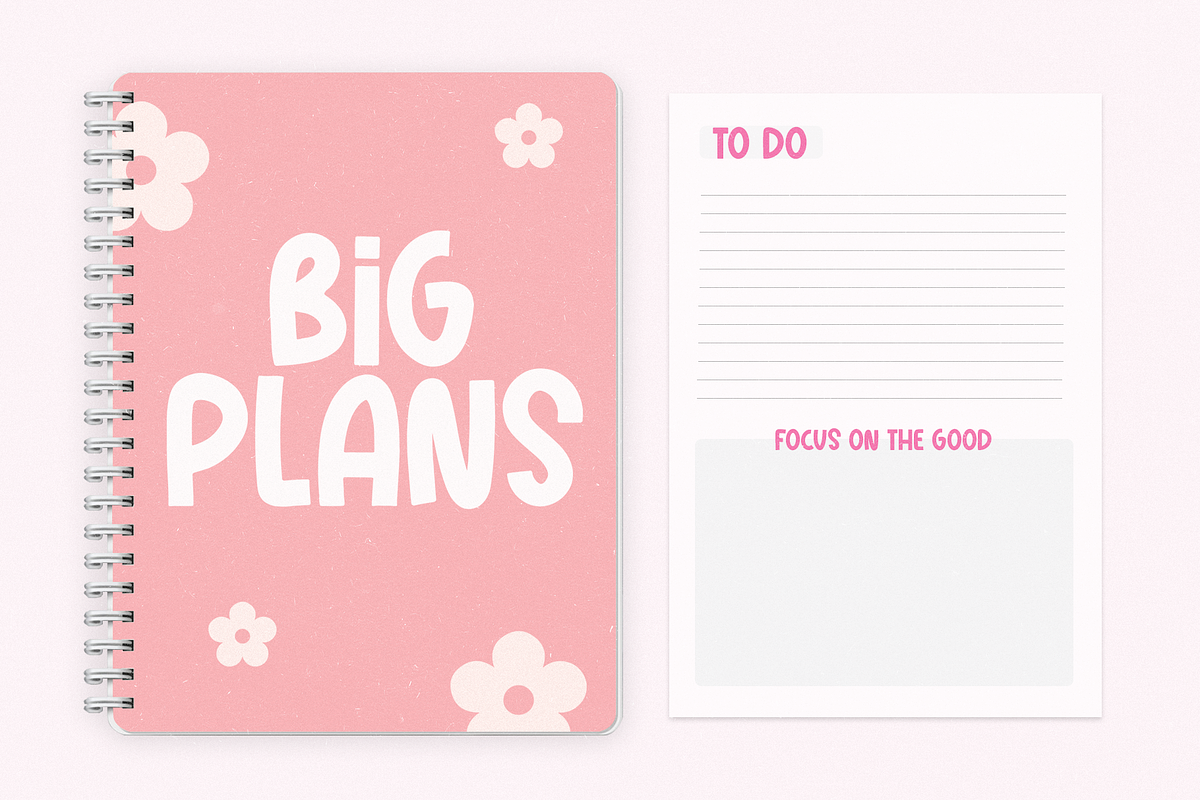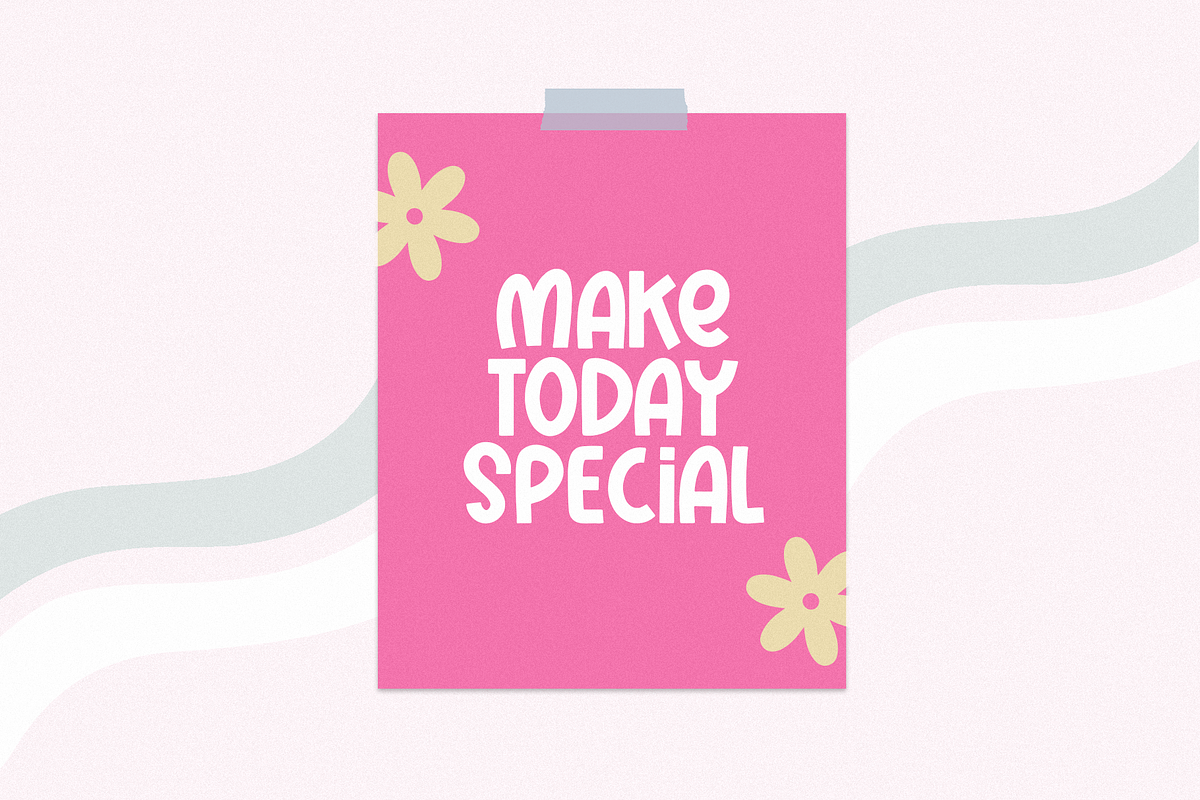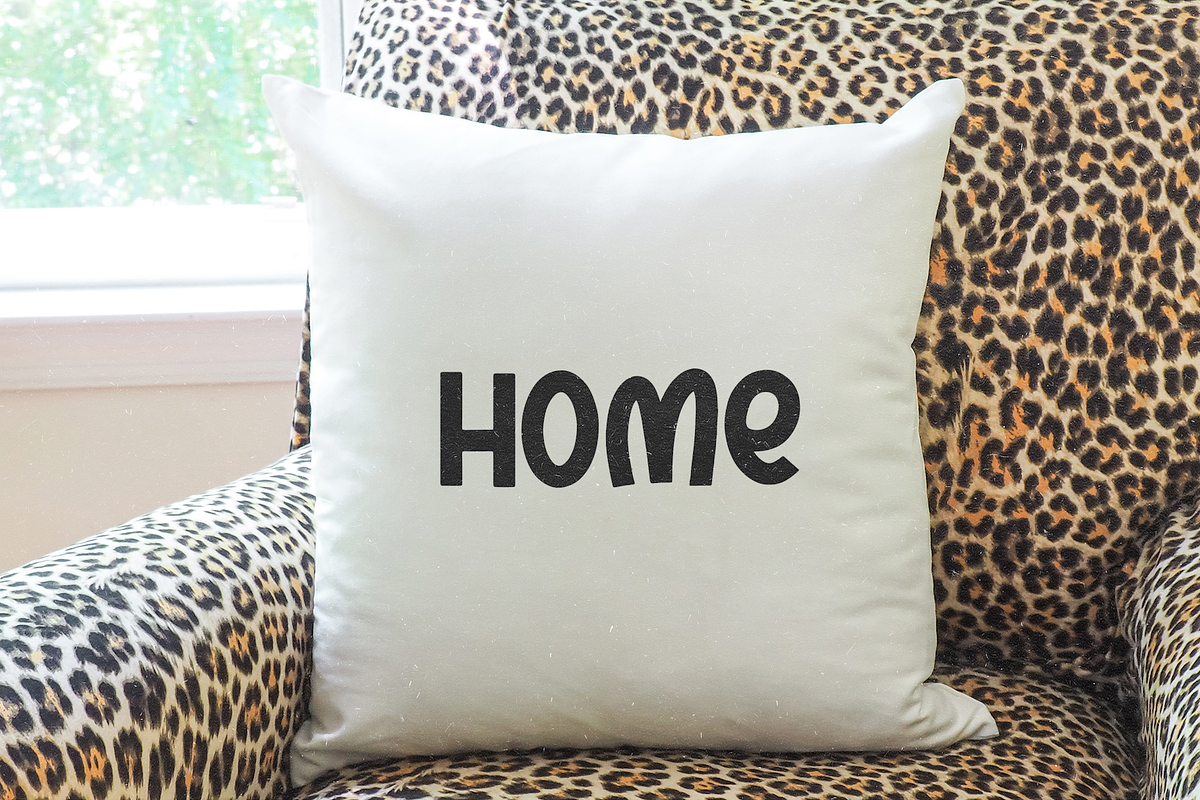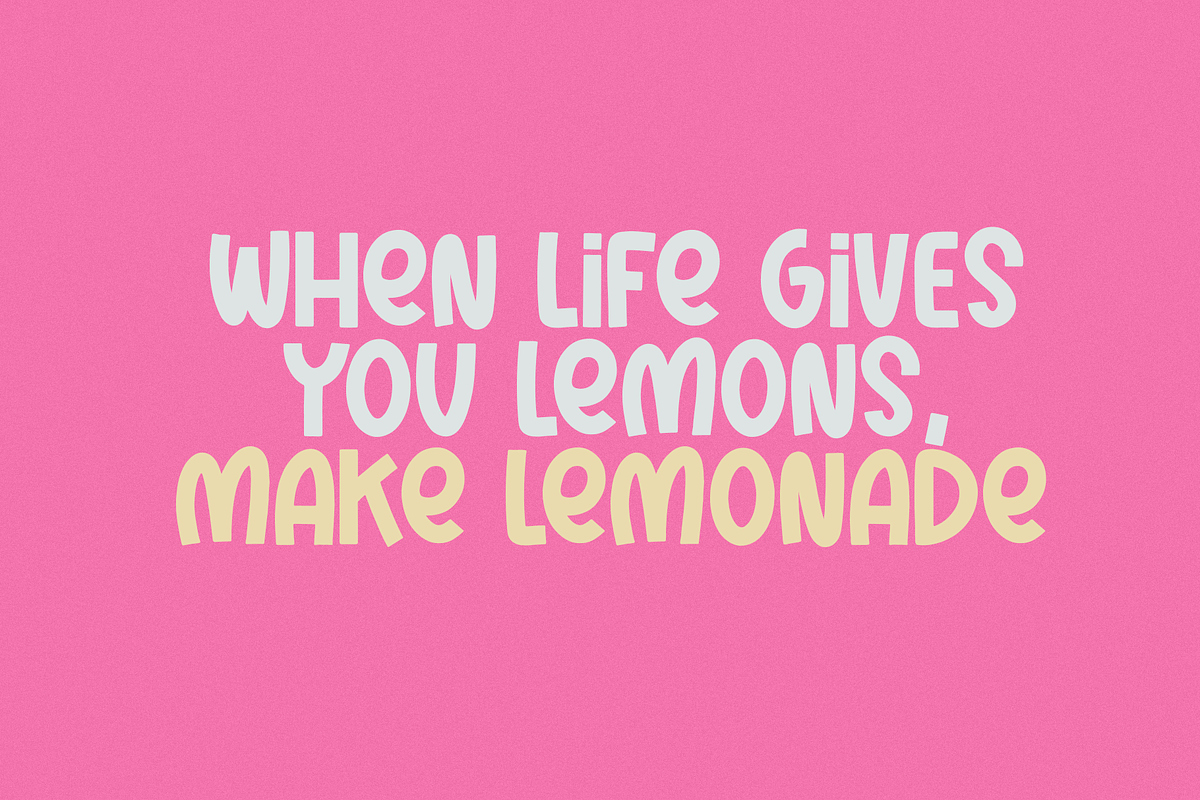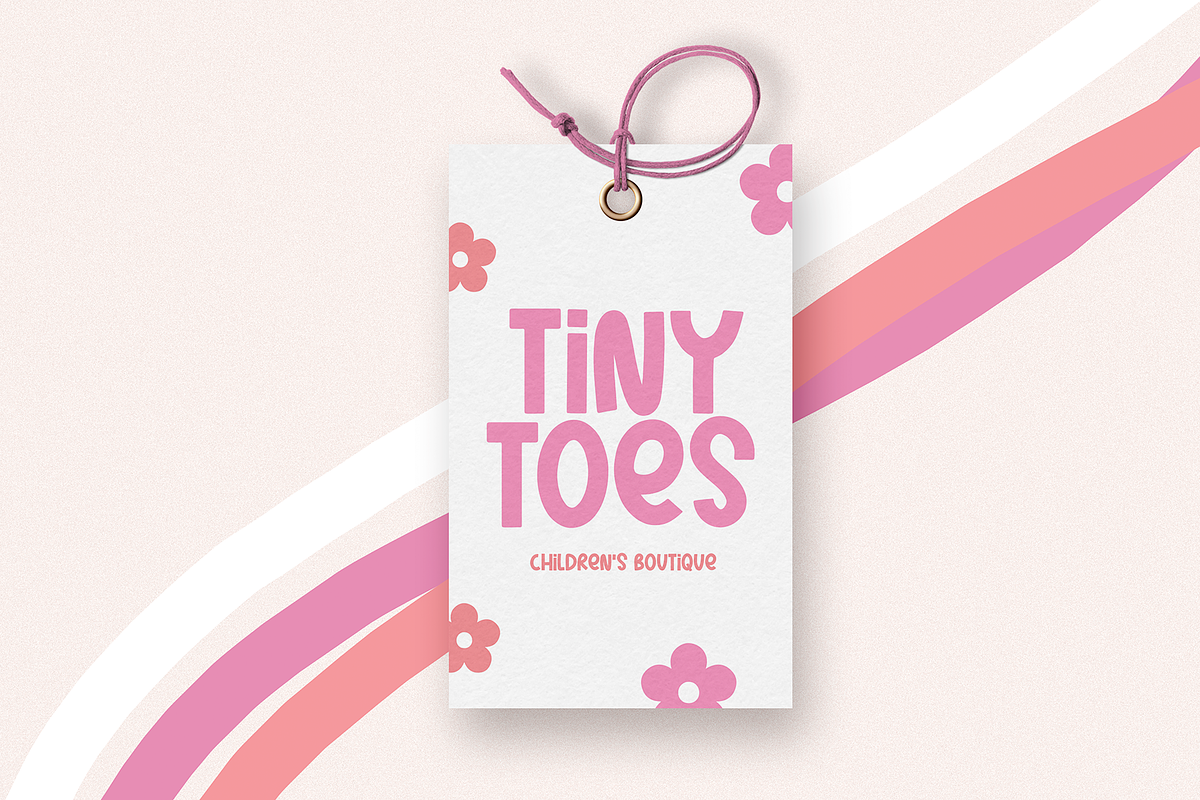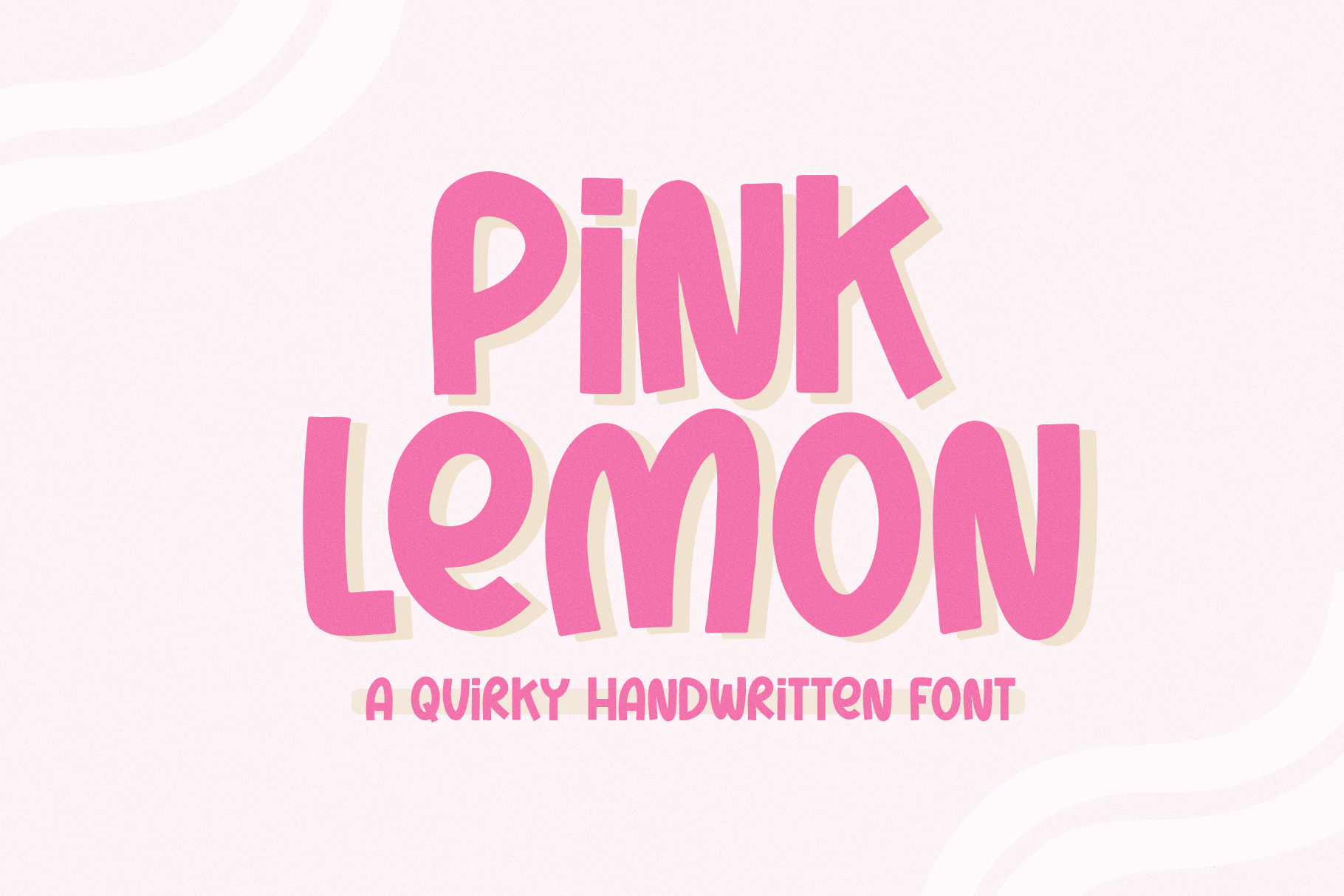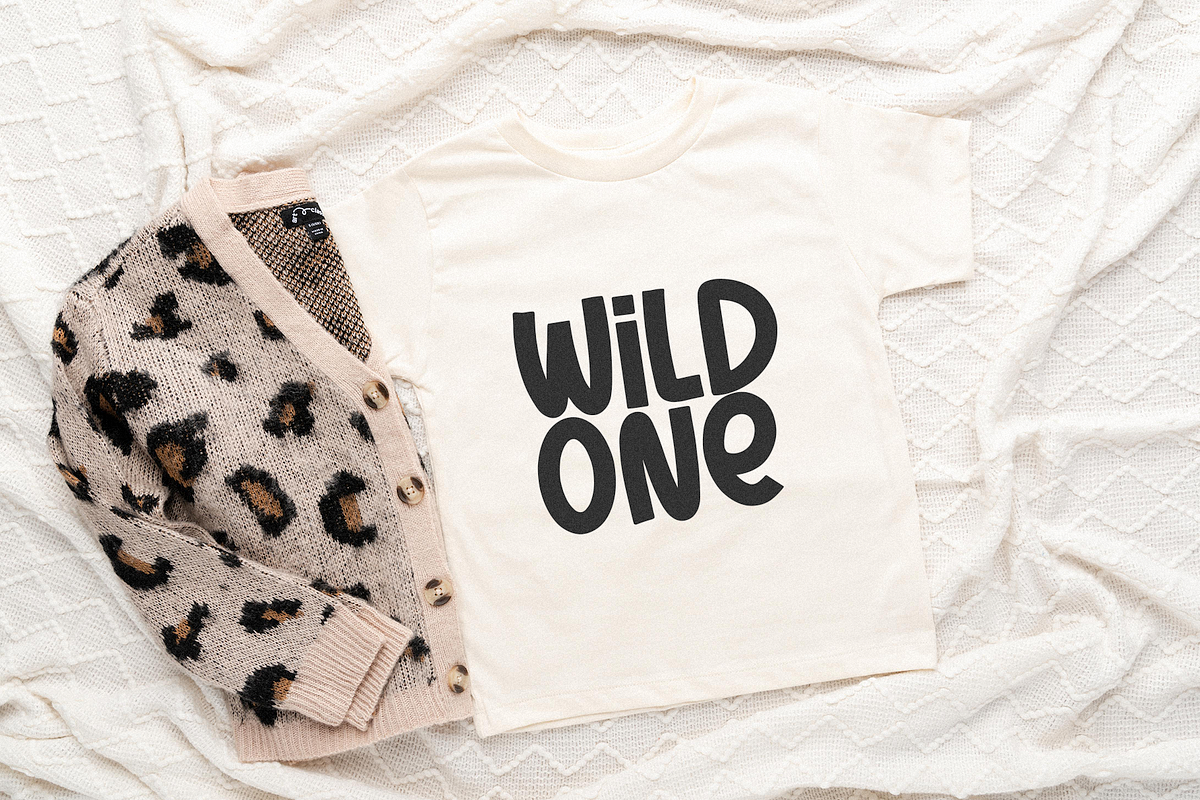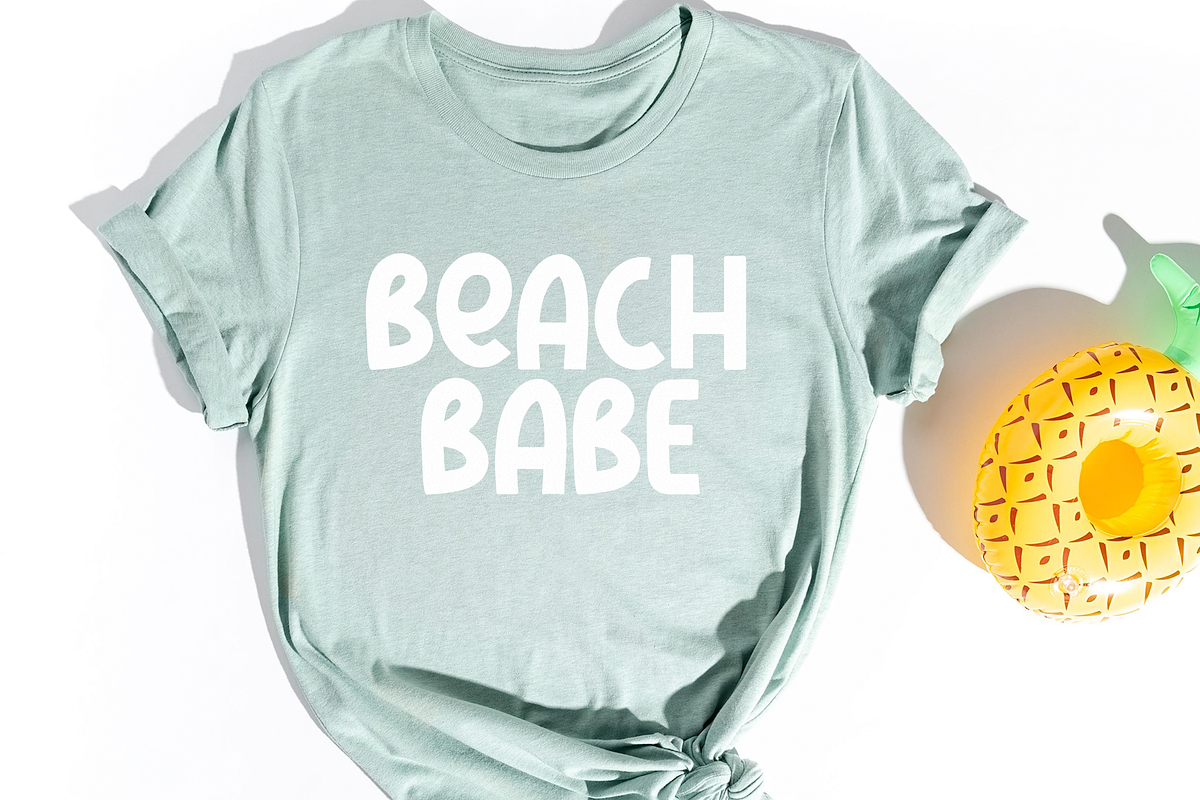
Pink Lemon | Quirky Handwritten Font
Pink Lemon is a quirky handwritten font.
This font is perfect for creating stickers, cricut projects, shirts, svg designs, procreate projects, quotes, branding and more!